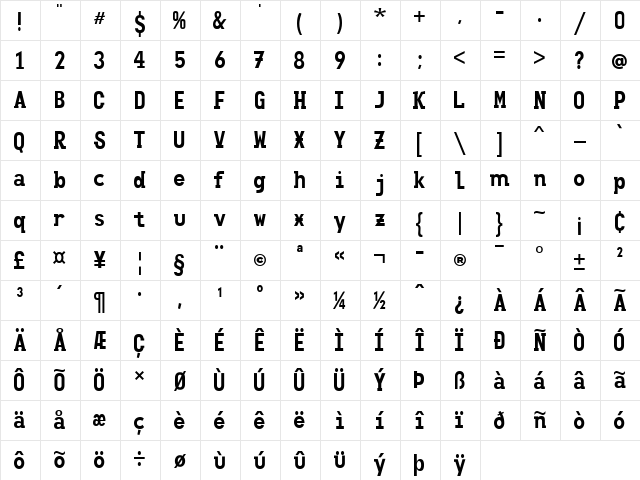
Clutsy Regular
| Foundry | aminmario |
| Designer | aminmario |
Design Context for Clutsy Typeface
Clutsy offers clean, dependable letterforms without strong stylistic allegiance, making it a practical choice for designers who need flexibility.